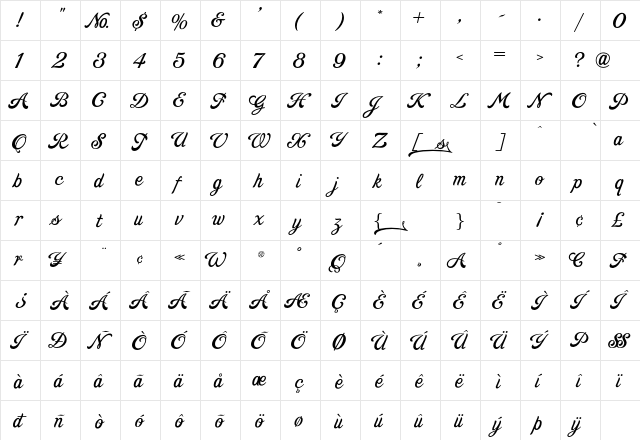
LHF Goldsmith Script Regular
Design Context for LHF Goldsmith Script Typeface
LHF Goldsmith Script brings a calligraphic fluidity to the page — its connecting strokes and expressive curves give it an unmistakably human quality.